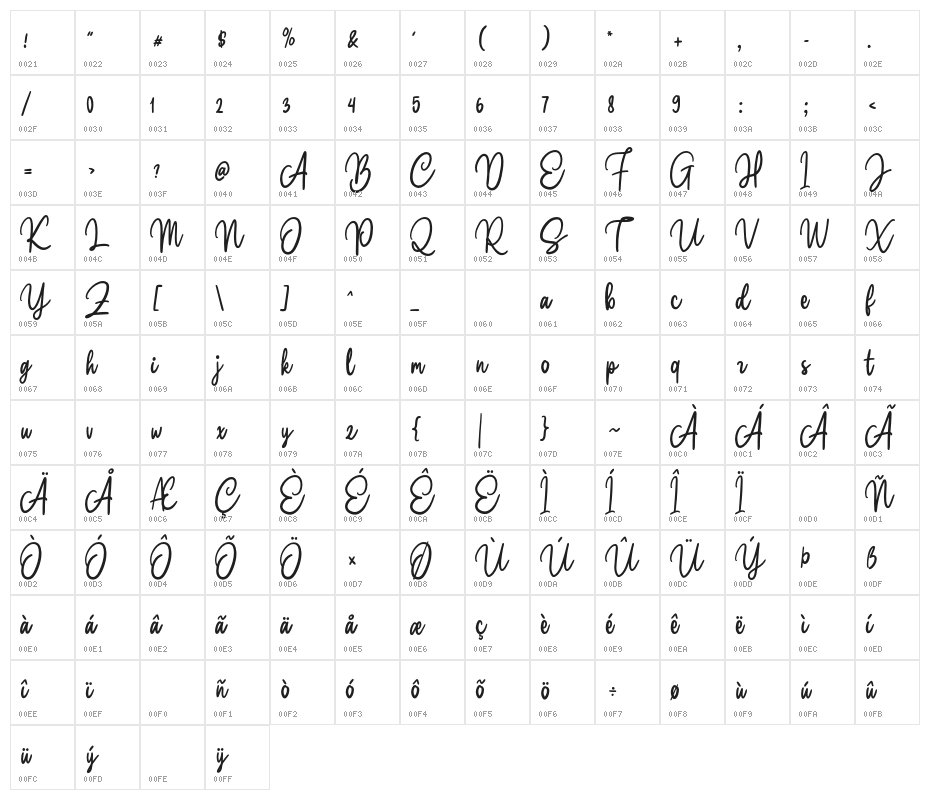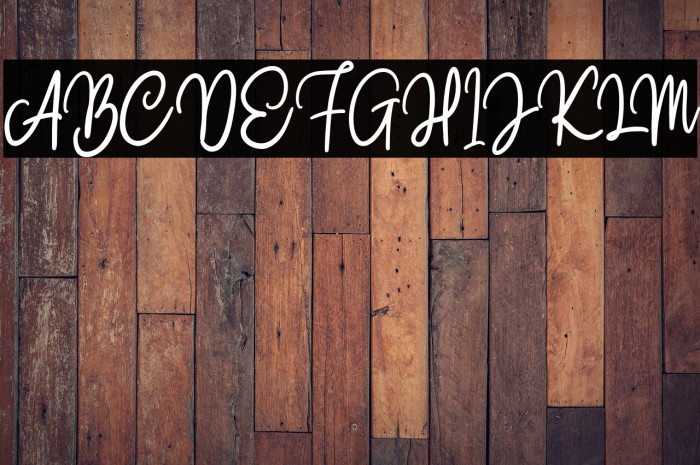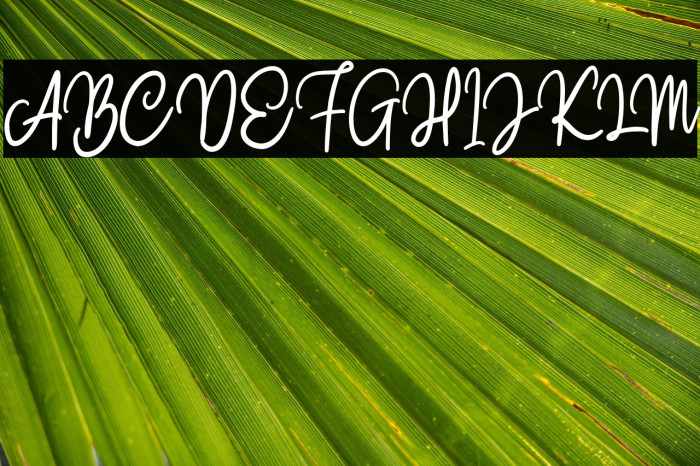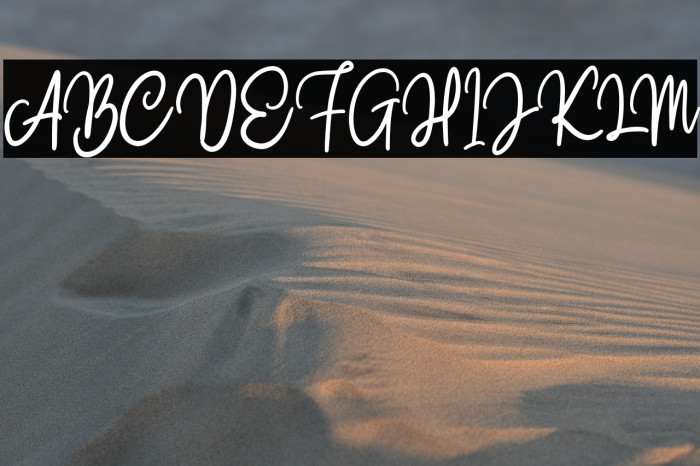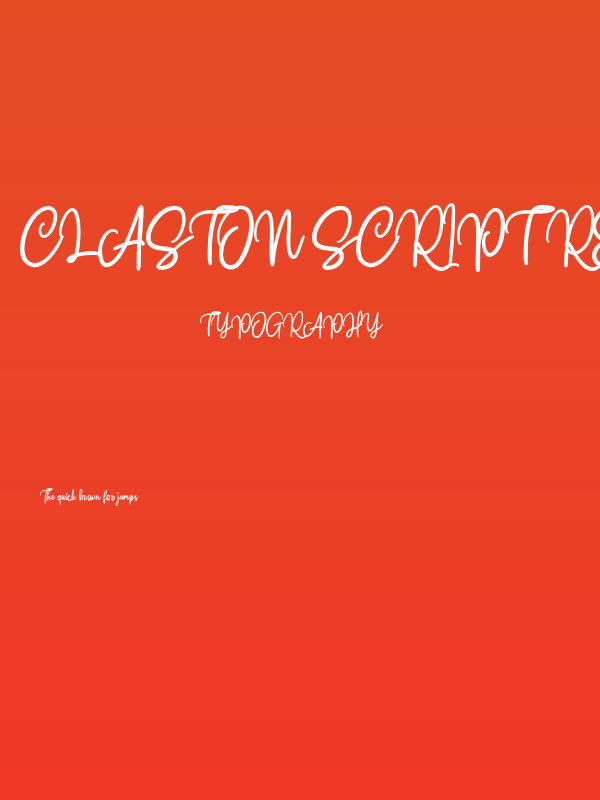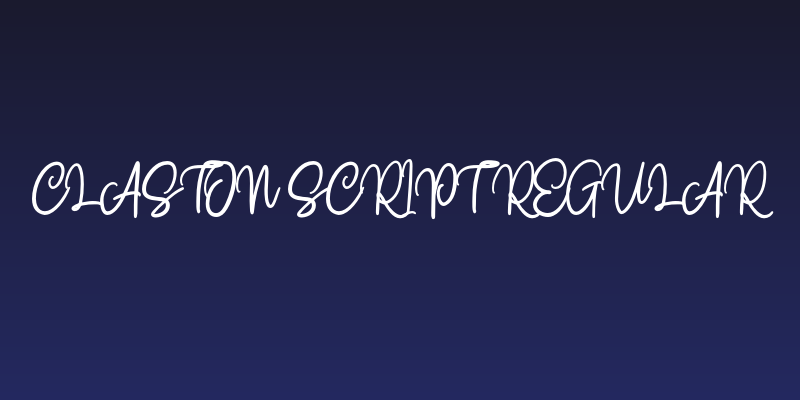
Claston Script Regular Font
Claston Script Regular Description
This font features a flowing, elegant script style with smooth, connected strokes that give it a handwritten appearance. The uppercase letters are tall and graceful, with sweeping curves and loops that add a touch of sophistication. The lowercase letters maintain a consistent flow, with rounded forms and slightly exaggerated descenders, enhancing its cursive nature. The numerals are clear and legible, matching the overall style with their rounded and fluid design. Special characters are well-integrated, maintaining the font's cohesive look. This script font is perfect for projects that require a personal, elegant touch.
| Overall Style | Elegant, Handwritten |
| Use Case | Logos, Invitations, Branding |
| Proposed Projects | Ideal for wedding invitations, greeting cards, logo design, and branding materials that require a personal and elegant touch. |